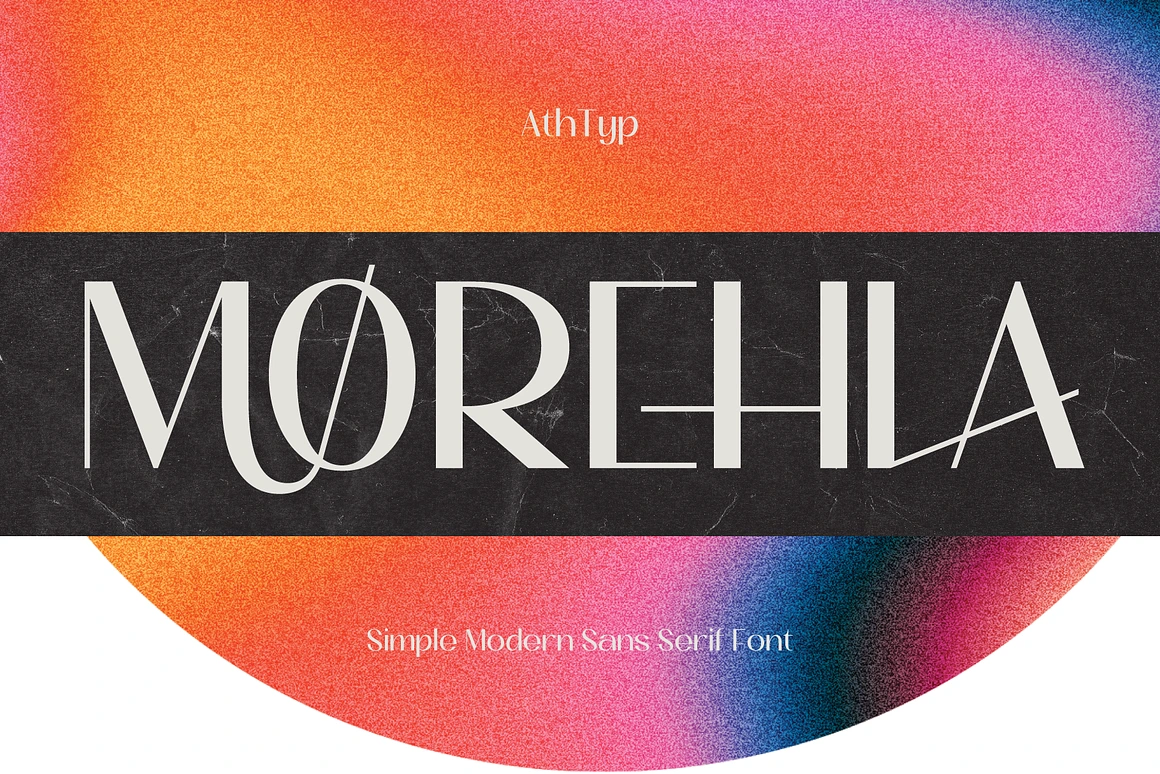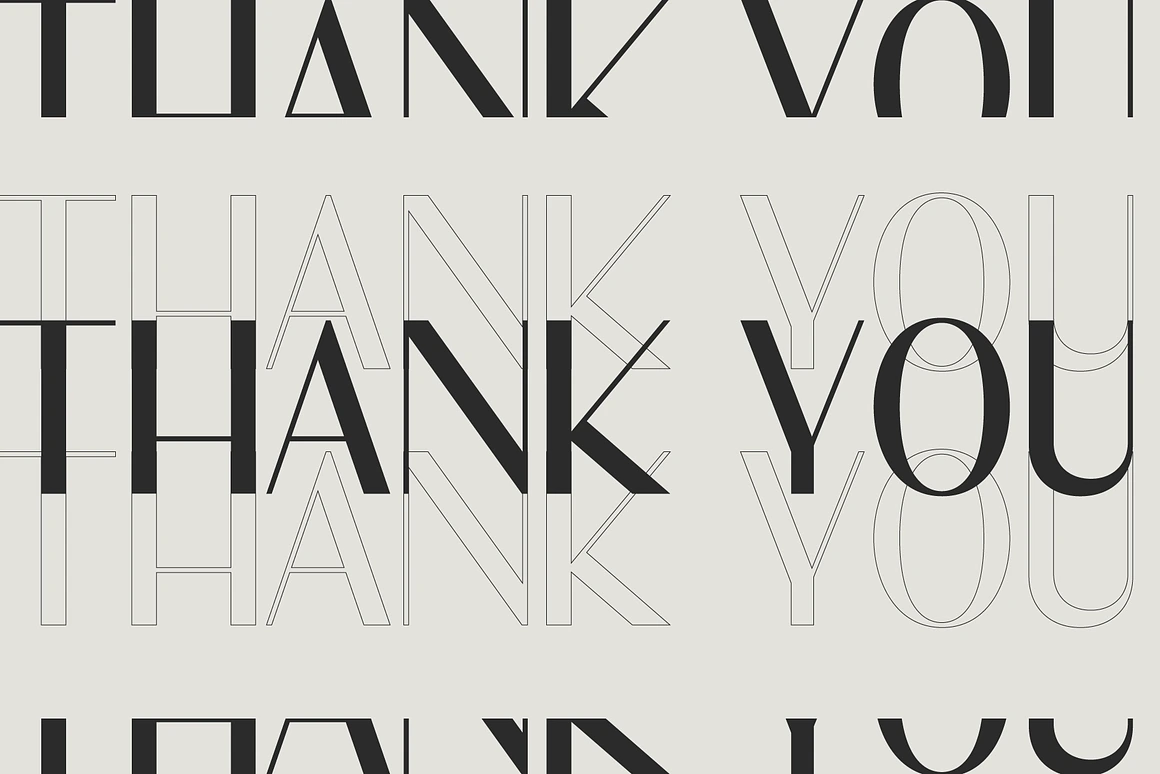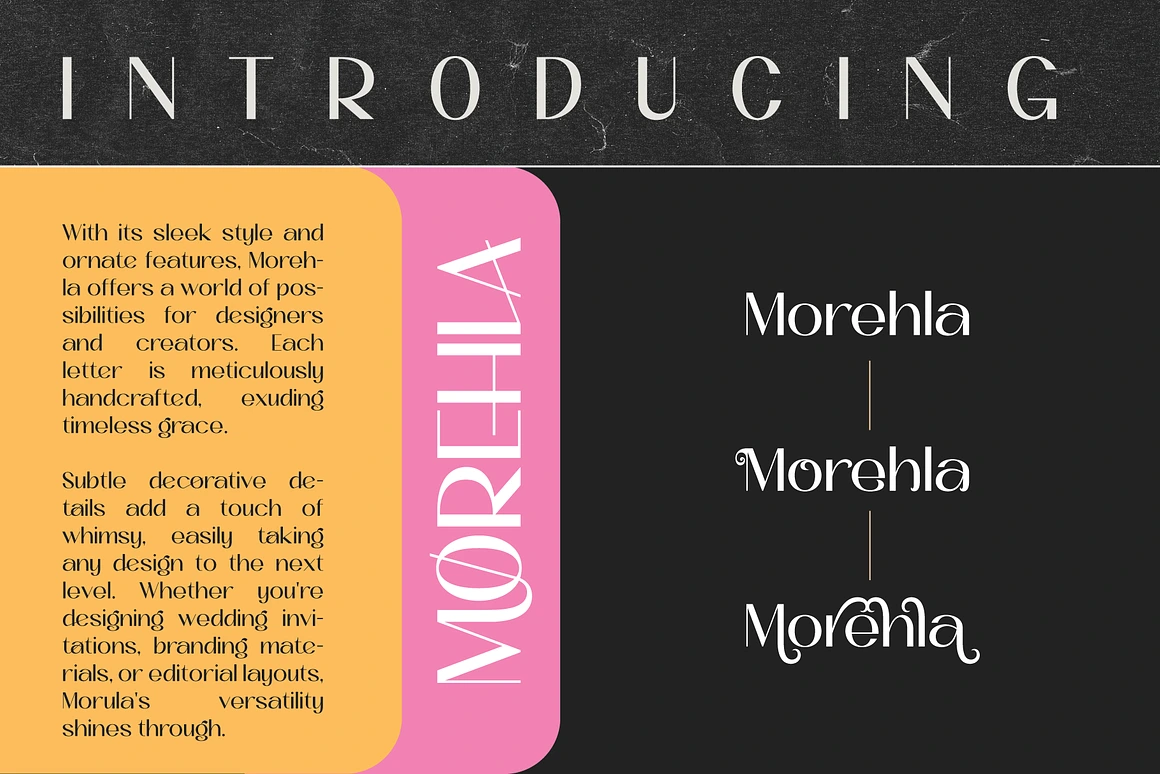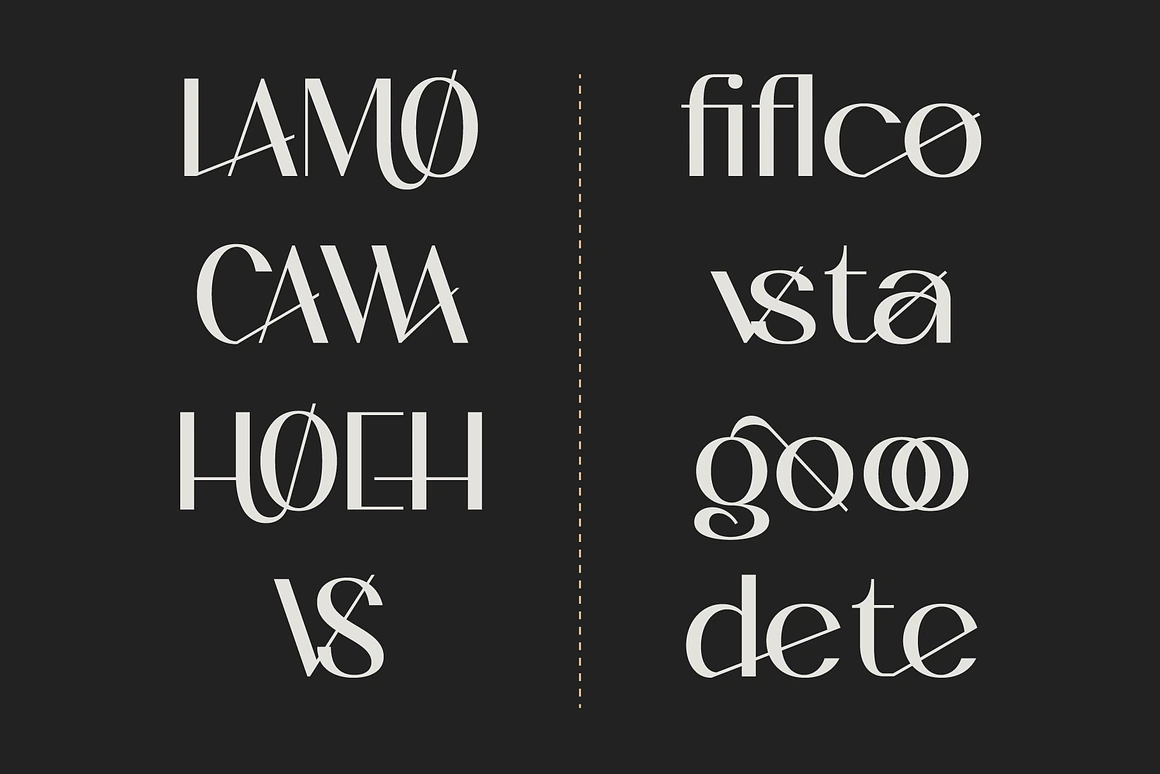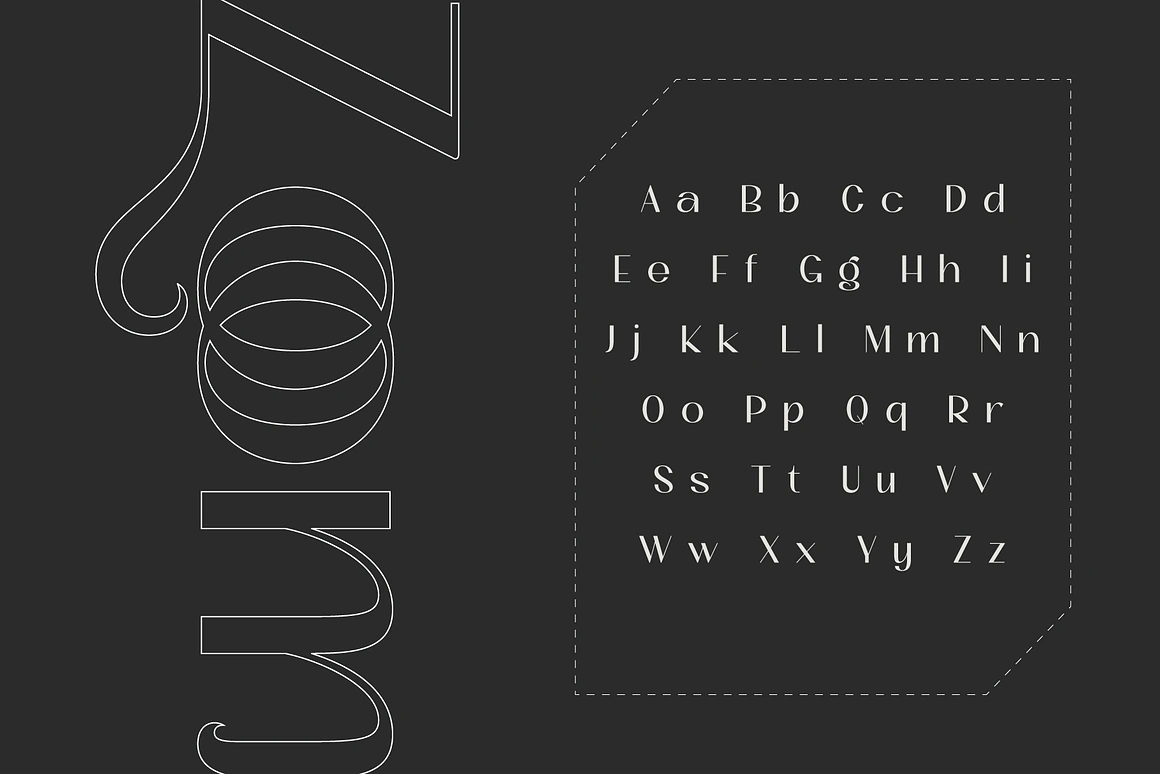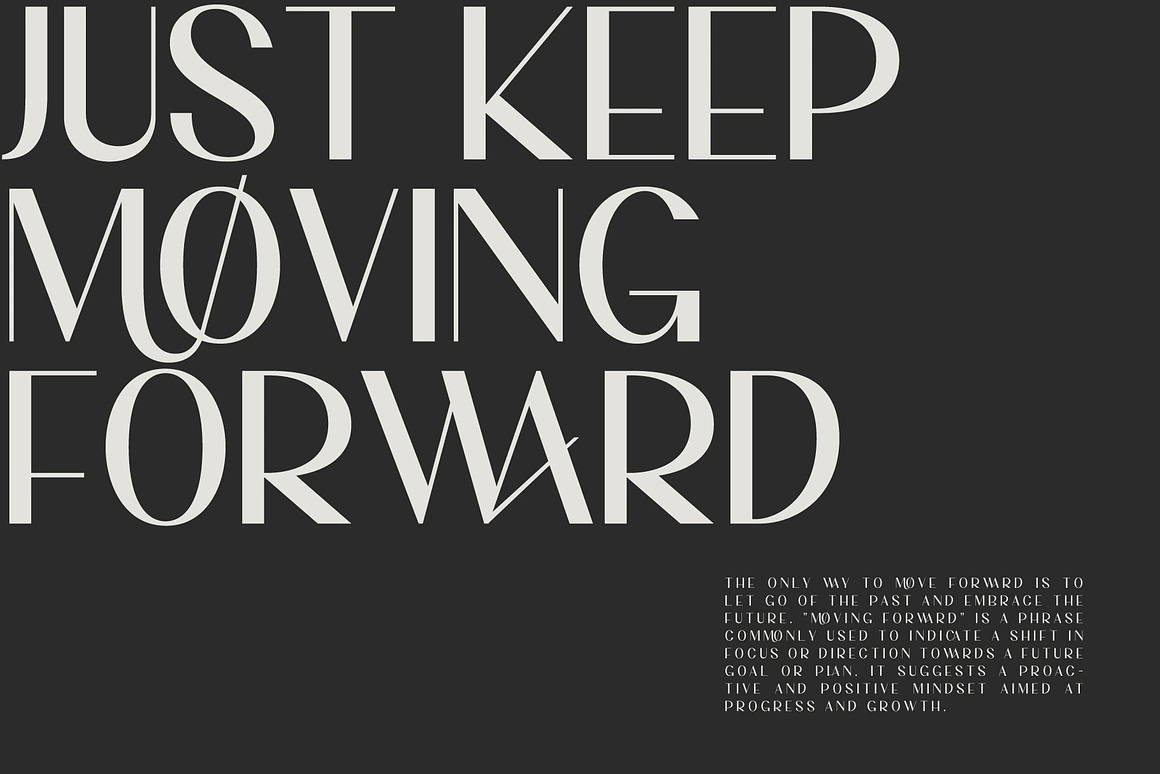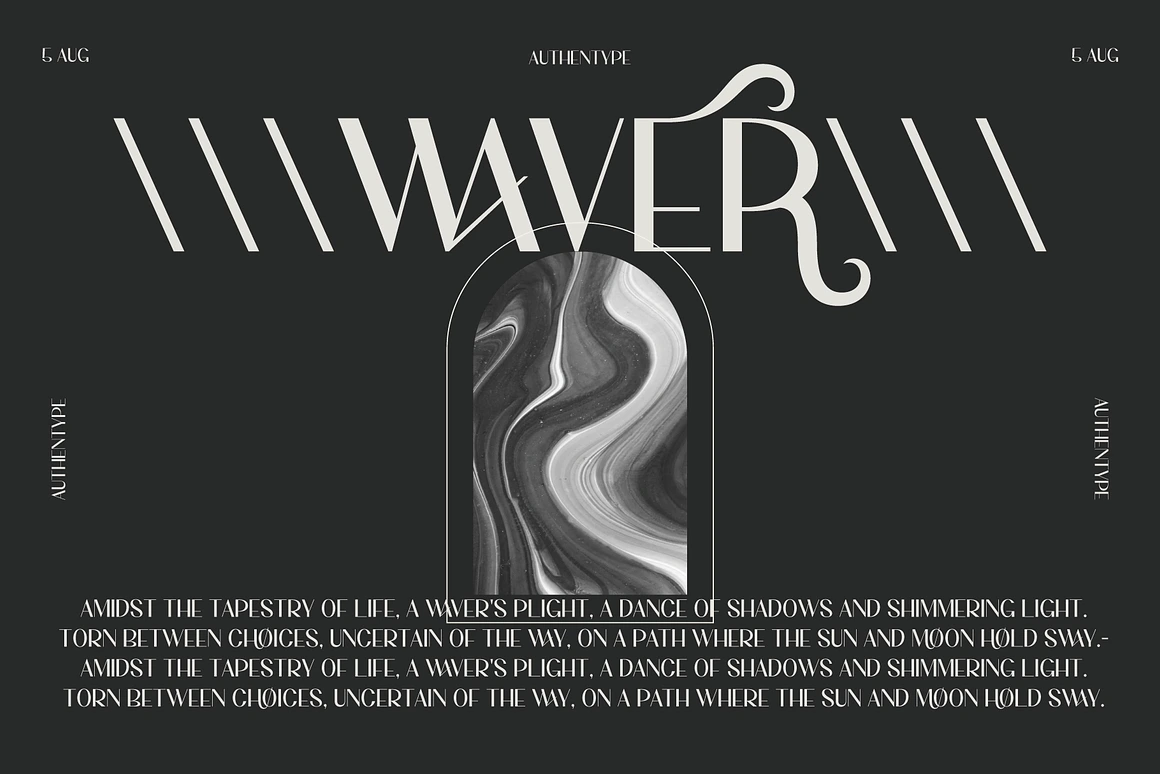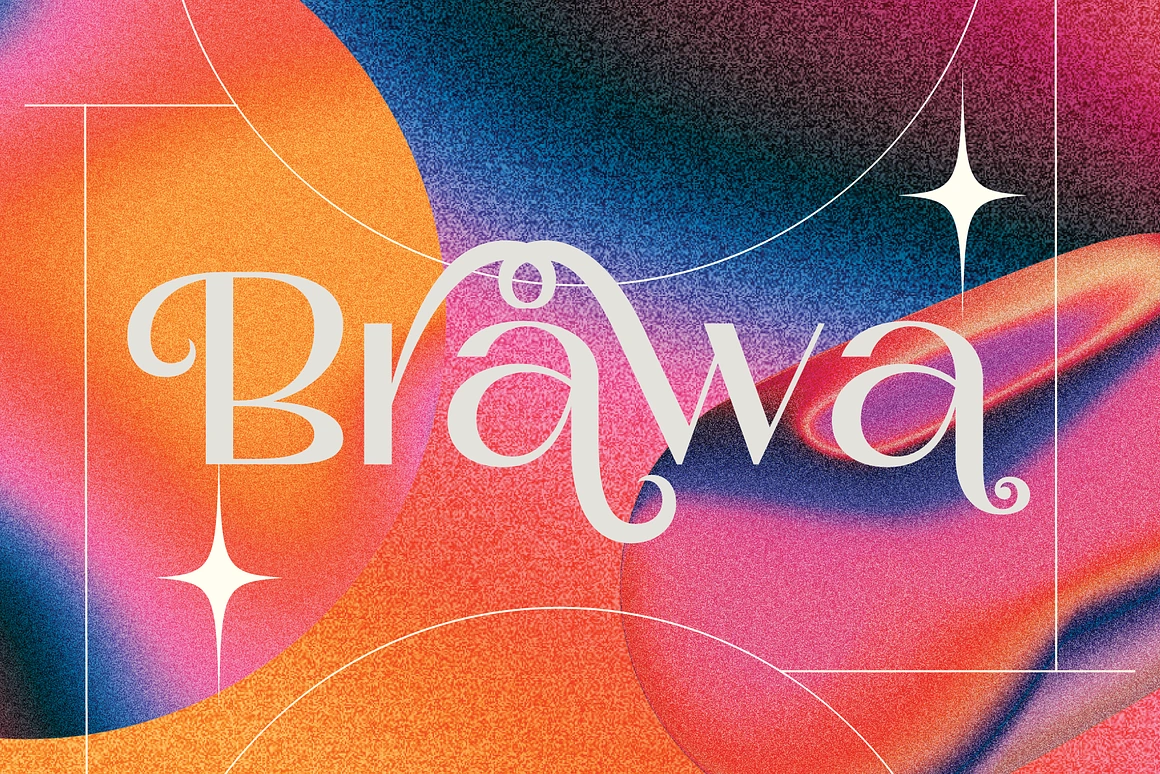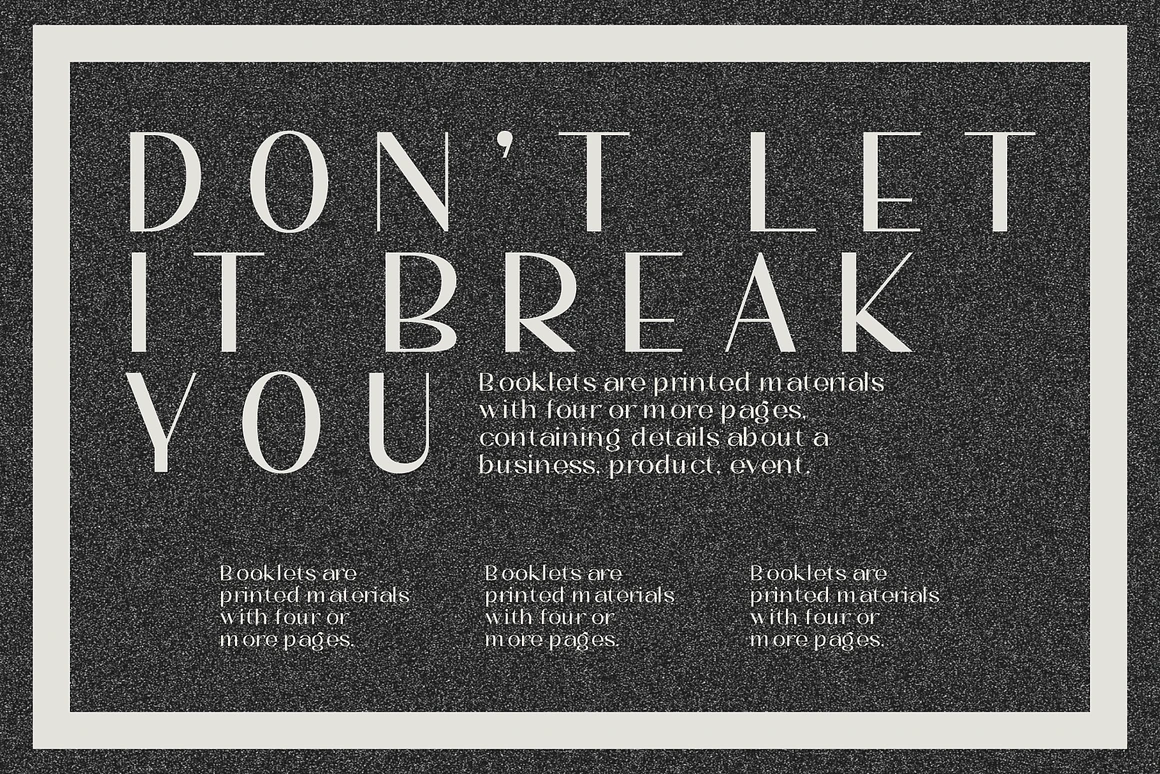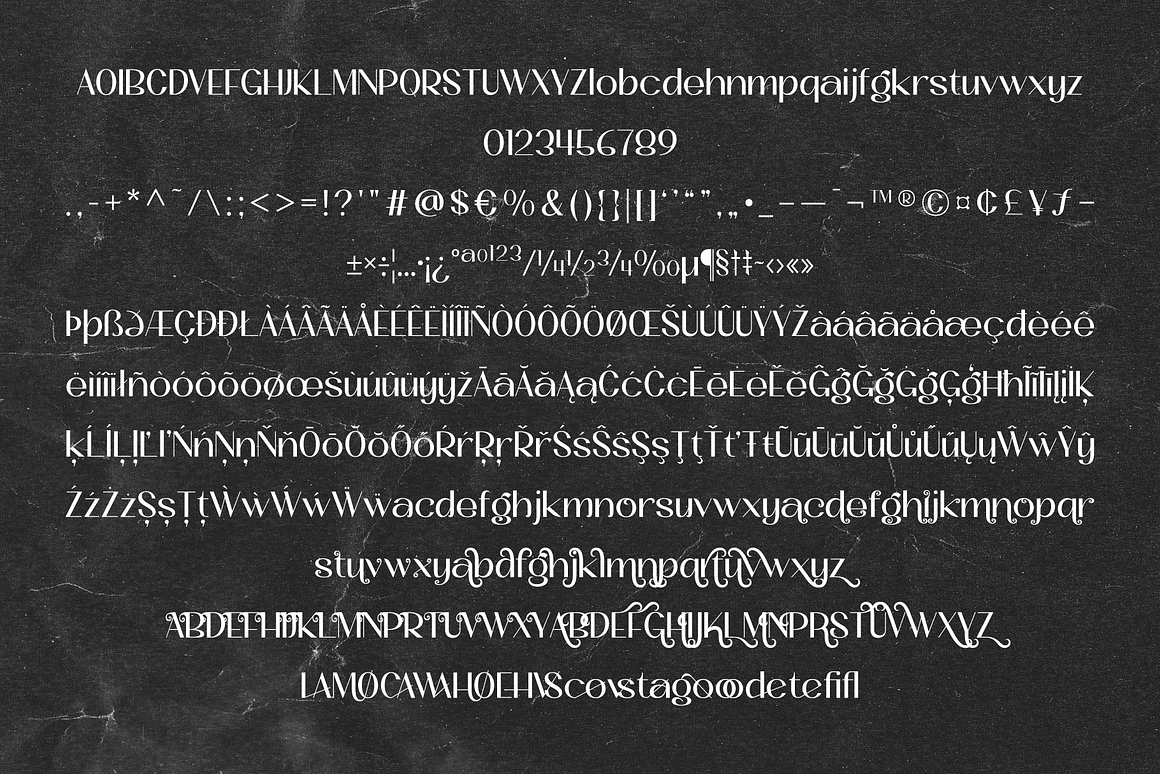
Morehla Simple Modern Sans Serif
Morehla
Morehla simple modern sans serif font with its sleek style and ornate features, Morehla offers a world of possibilities for designers and creators. Each letter is meticulously handcrafted, exuding timeless grace.
Subtle decorative details add a touch of whimsy, easily taking any design to the next level. Whether you’re designing wedding invitations, branding materials, or editorial layouts, Morula’s versatility shines through.